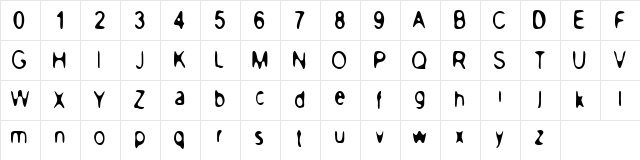
PeaceNow Basic Font Preview
Design Context for PeaceNow Basic Typeface
PeaceNow Basic is a composed and adaptable typeface that performs quietly and consistently across a wide range of design contexts.